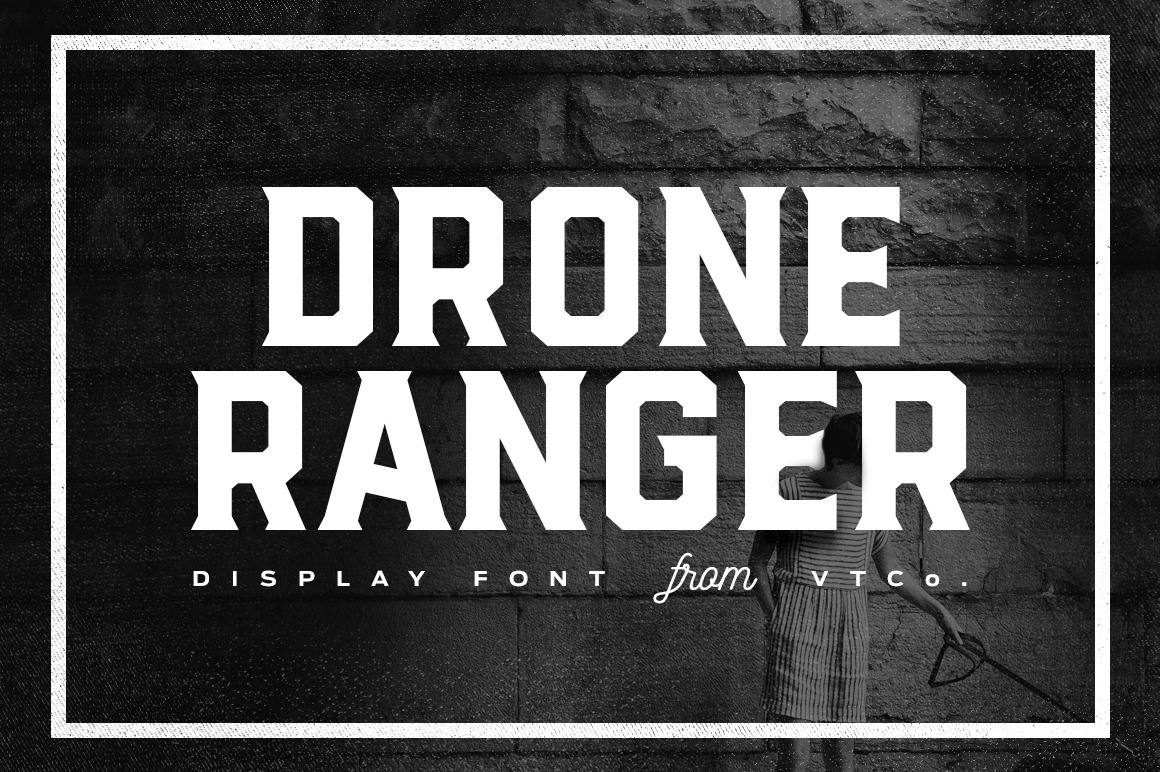
Drone Ranger Display Font
Drone Ranger is a geometric display family that includes 9 various styles for your designing needs. Included in the family is a Sans version, a Serif version, and a Special Decorative version, and each of these have their own clean, oblique, and inked styles.
Drone Ranger lends itself perfectly to sports design, logos, posters, packaging, brochures, t-shirts, and so much more!
Saw this type in a series of designs by a contemporary and instantly had to find out what it was and get it. Much more versatile than expected, well-made, fun style alternates, a definite go-to.
This is an OUSTANDING font. It comes with many variations to choose from and it really made a difference in our project being able to select from the different options included. Vintage Type Co. are clearly professionals.